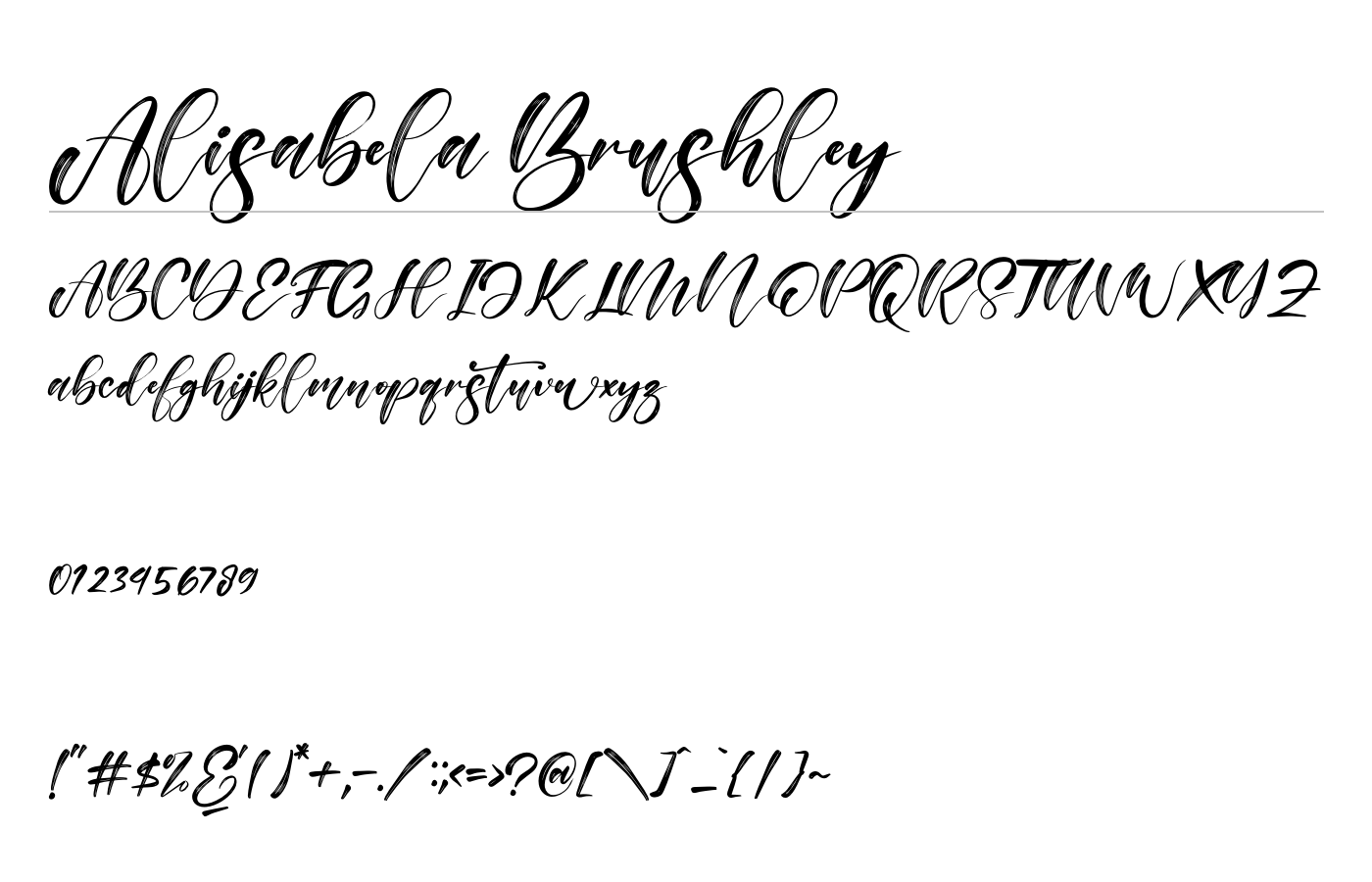
Alisabela Brushley is an elegant brush script font featuring fluid, hand-painted strokes that blend bold and delicate lines for a dynamic, artistic feel. Its flowing, connected letterforms and varying stroke widths give it a sophisticated yet playful personality, ideal for stylish branding, invitations, and creative designs that seek a personal, handcrafted touch. This font works best in headlines, logos, and decorative text where expressive, eye-catching lettering is desired.
Alisabela Brushley Font
About Alisabela Brushley Font